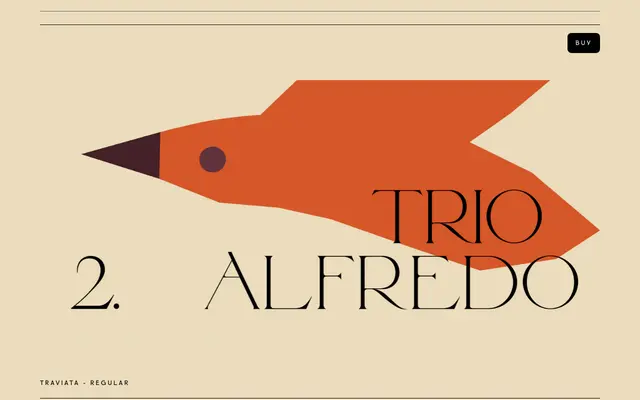
Traviata
VJ Type · Jérémy Schneider · 2017
A single-weight display serif designed for the 2017–2018 identity of the Théâtre des Bouffes du Nord in Paris, blending classical structure with geometric details.
Designed by Jérémy Schneider of Violaine & Jérémy for a theatrical production identity, it pairs a conventional serif skeleton with unusual details: an elongated apex, extended strokes and a tension between traditional construction and geometric forms. The result is a high-contrast, elegant face suited to poster and headline work, particularly where strong colour is involved. Language support covers a broad range of Latin-script European languages.
A single-weight display typeface combining classical serif structure with geometric and expressive details; the high contrast, unconventional apex and mixed construction place it firmly in the display serif category rather than a conventional text serif classification.